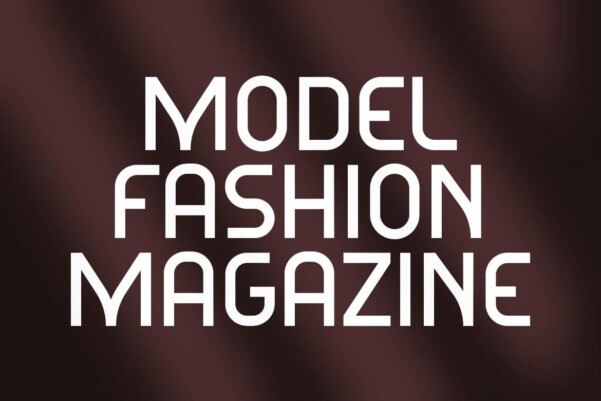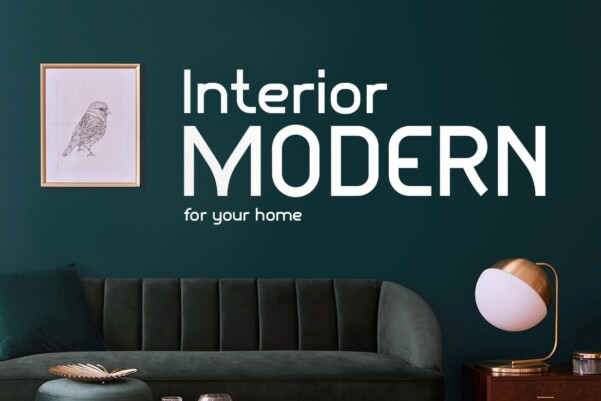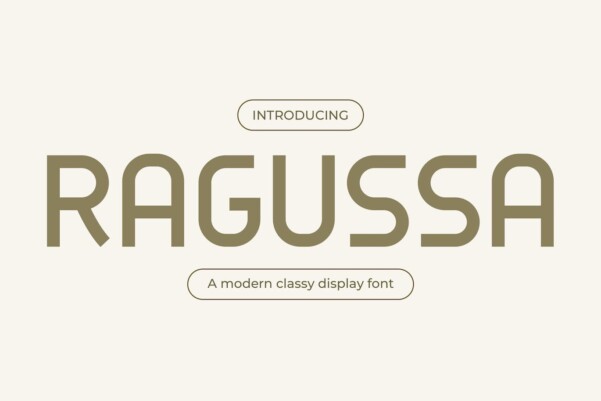
Ragussa Font
Ragussa Font is the epitome of modern sophistication, seamlessly fusing classic charm with contemporary allure. Its elegant sans serif design breathes life into fashion, logos, quotes, invitations, signage, posters, greeting cards, packaging, branding, wedding quotes, and cover albums, offering a timeless appeal to every project.
Embrace the modernity of Ragussa while relishing its classic touch. This font exudes a refined simplicity that enhances your designs with an air of sophistication. Its sleek lines and clean edges ensure readability while adding a touch of grace to your creations.
For fashion and branding projects, Ragussa’s modern yet classic style adds an element of prestige and allure. Its extends versatility to quotes, invitations, and signage, making each piece captivating and distinct.
In the world of posters, packaging, and cover albums, Ragussa stands out, offering an ideal blend of contemporary aesthetics and timeless elegance. Greeting cards and wedding quotes acquire a sense of modern romanticism when adorned with Ragussa’s graceful curves and polished appearance.
With Ragussa, your design possibilities are limitless. Let this font be your partner in crafting designs that resonate with modern sophistication and timeless beauty, creating lasting impressions across a myriad of projects and beyond.